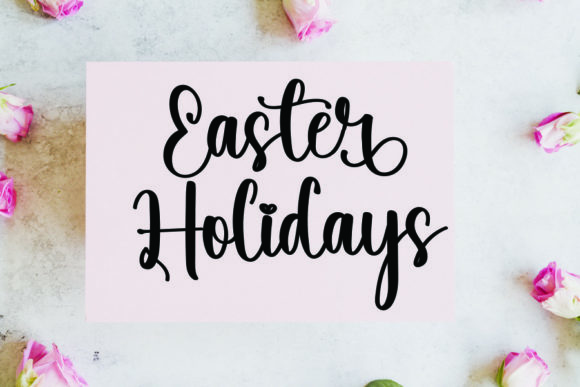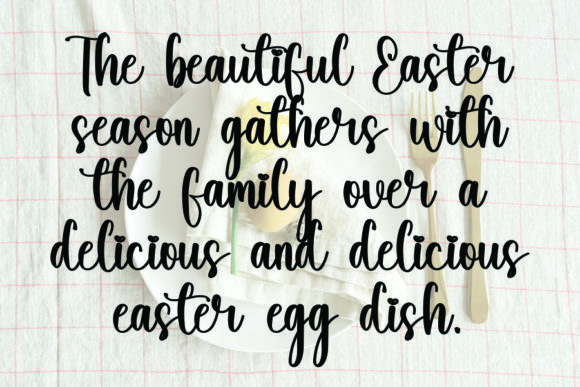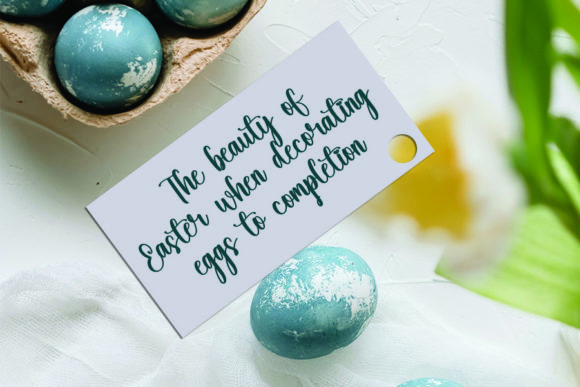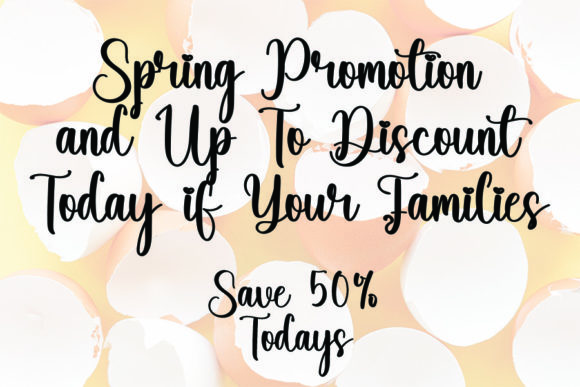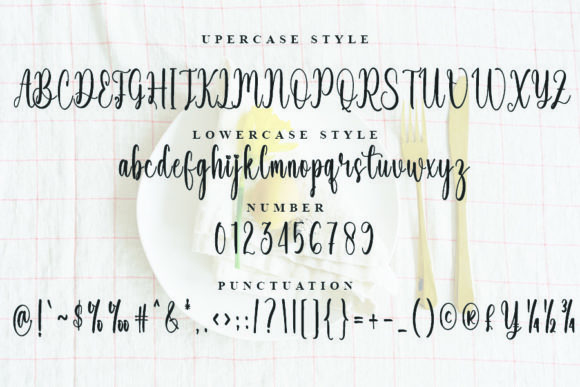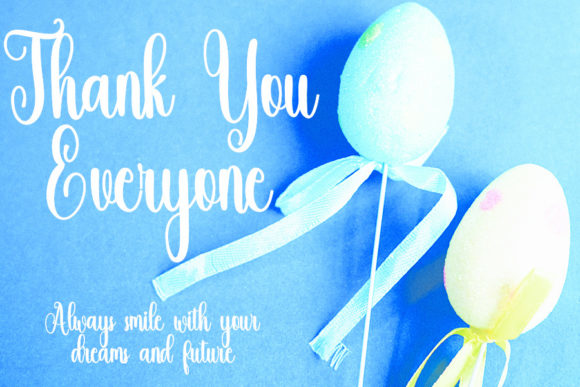
Easter Font: Elevate Your Designs with a Timeless Classic
Easter is a stylish handwritten font that brings a touch of sophistication and elegance to any design project. Inspired by timeless classic calligraphy, this contemporary font is perfect for designers and crafters looking to add a personal touch to their work. With its impeccable form and balanced design, Easter Font is sure to enhance the beauty of your projects.
What is Easter Font?
Easter Font is a modern handwritten font that draws inspiration from traditional calligraphy. Its unique blend of classic and contemporary elements makes it an ideal choice for a wide range of design projects, from wedding invitations and branding materials to digital graphics and craft projects.
Key Features of Easter Font
- Contemporary atmosphere: Easter Font boasts a fresh and modern design that will add a touch of sophistication to your projects.
- Impeccable form: The font’s precise and elegant lines ensure that it remains legible and beautiful, even at small sizes.
- Balanced and varied: Easter Font features a range of characters and glyphs, allowing you to create unique and visually appealing designs.
- Handwritten feel: The font’s handwritten style adds a personal touch to your designs, making them stand out from the crowd.
Why Choose Easter Font?
Easter Font is an excellent choice for designers and crafters looking to elevate their designs with a touch of elegance and sophistication. Here are just a few reasons why:
- Versatility: Easter Font is suitable for a wide range of design projects, from digital graphics and branding materials to wedding invitations and craft projects.
- Unique style: Easter Font’s unique blend of classic and contemporary elements ensures that your designs will stand out from the crowd.
Using Easter Font in Your Designs
Easter Font is incredibly versatile and can be used in a variety of design projects. Here are a few ideas to get you started:
- Wedding invitations: Add a touch of elegance and sophistication to your wedding invitations with Easter Font.
- Branding materials: Use Easter Font to create unique and memorable branding materials, such as logos, business cards, and letterheads.
- Digital graphics: Easter Font is perfect for creating stunning digital graphics, such as social media graphics, blog headers, and email newsletters.
- Craft projects: Add a personal touch to your craft projects, such as handmade cards, gift tags, and scrapbooking pages, with Easter Font.
- Experiment with different sizes: Easter Font looks beautiful at a range of sizes, from small and delicate to large and bold.
- Play with color: The font’s elegant design looks stunning in a variety of colors, from classic black and white to bold and bright hues.
- Mix and match: Combine Easter Font with other fonts and design elements to create unique and visually appealing designs.
Easter Font is a stylish and versatile handwritten font that is perfect for designers and crafters looking to add a touch of elegance and sophistication to their designs. With its impeccable form, balanced design, and contemporary atmosphere, Easter Font is sure to enhance the beauty of your projects. Whether you’re working on a wedding invitation, branding materials, digital graphics, or craft projects, Easter Font is an excellent choice.